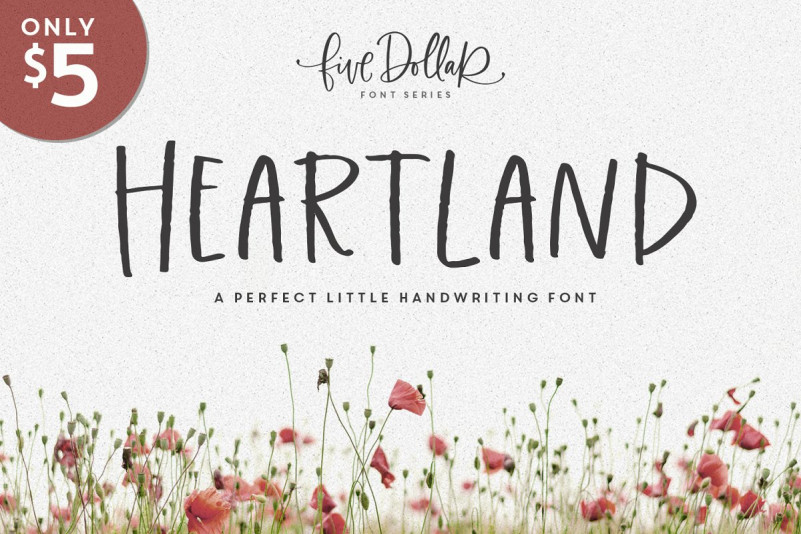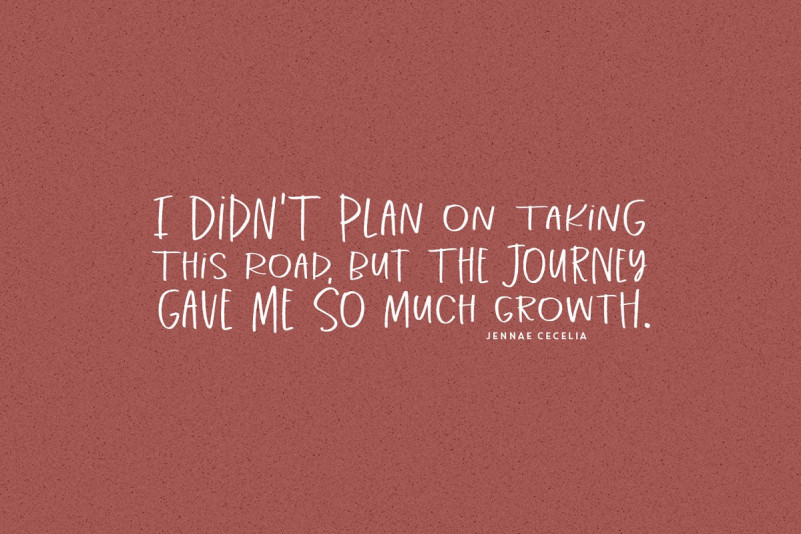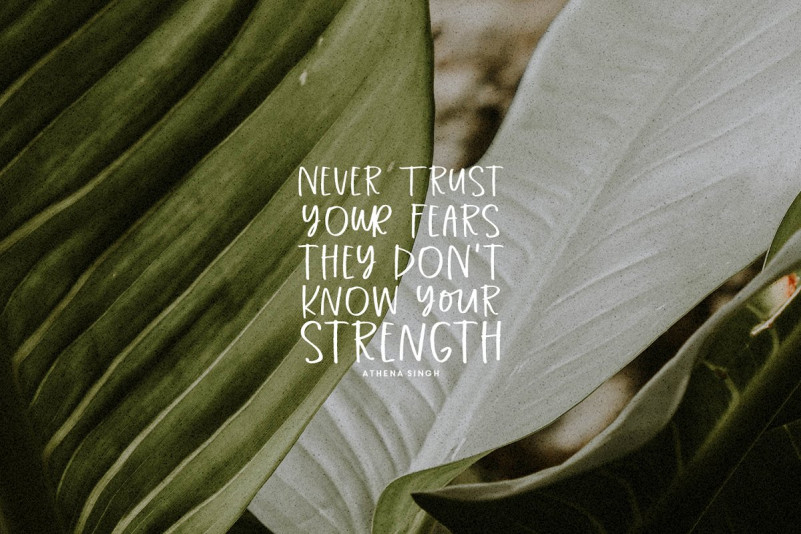
Heartland Font
*This sweet little font was turning some heads over on MakeMediaCo, so I decided to post it on CM too 😉 Introducing Heartland Handwriting Font – a sweet, simple, hand written typeface designed for social media posts, branding, mugs, totes, packaging & quotes.**